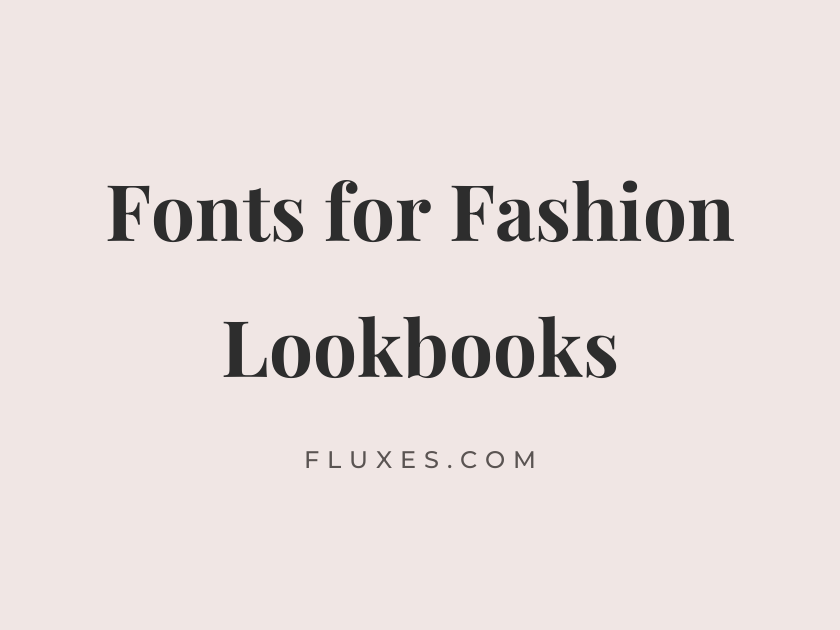
61 Best Fonts for Fashion Lookbooks
Fashion lookbooks live or die on restraint. The clothes need room to breathe, so the type has to work harder with less: a single well-chosen typeface for a cover line, a disciplined caption face for credits, maybe one flourish of script for a signature. Because most lookbooks are produced on tight budgets and tighter timelines, free fonts from Google Fonts have become the backbone of the industry, from independent labels doing their own layouts to agencies building templates for seasonal drops. The styles that work best split into a few families: editorial serifs with couture polish, minimalist sans faces for clean grid systems, condensed display faces for cover mastheads, and the occasional script or monospace accent for personality.
What follows is a working wardrobe of typefaces suited to fashion editorial, from bridal-adjacent elegance to streetwear grit, all free to download and license for commercial work.
1. Playfair Display
Season after season, an editorial silhouette refined
Playfair Display is the reflexive choice for fashion editorial, and for good reason. Its high-contrast strokes and sharp serifs read as instantly luxurious on a cover or section divider, echoing the Didone tradition of Vogue and Harper’s Bazaar mastheads.
It gets used constantly, so pair it with an unexpected sans for body copy if you want the layout to feel less like a template. At very small sizes the thin hairlines can vanish, so reserve it for headlines rather than dense caption text.
2. Bodoni Moda
Sharp contrast, couture polish, unmistakably runway
Where Playfair leans slightly romantic, Bodoni Moda leans severe. The vertical stress and razor-thin hairlines feel straight off a Milan runway invitation, and the optical size axis in this variable font means it actually holds up better at small sizes than most Didones.
3. Abril Fatface
Bold statement piece for the season's cover
Abril Fatface is a heavyweight display serif built for impact rather than subtlety. Use it sparingly, a single word on a cover or a pull-quote, and it delivers real presence without needing decoration.
4. Cormorant Garamond
Delicate lines for an intimate spring collection
Cormorant Garamond takes the calligraphic bones of old-style Garamond and stretches them thin and tall, giving it a jewelry-catalog daintiness. It suits bridal, resort, and lingerie lookbooks where softness matters more than authority.
5. Cormorant
Slender serifs for an understated capsule edit
The wider-ranging sibling of Cormorant Garamond, this family offers heavier weights and a slightly less fragile presence, so it can carry short headlines as well as decorative initials.
6. EB Garamond
Classic tailoring, timeless proportions, quietly confident craft
For brands building on heritage rather than trend, EB Garamond brings old-world credibility. It is a genuinely comfortable reading face, which makes it a smart pick for longer designer statements or press notes inside a lookbook.
7. Lora
Warm serifs for a lived-in wardrobe story
Lora has gentle brushstroke curves that soften its serif structure, giving it a slightly literary, personal feel. It works well as body copy alongside a sharper display serif on the cover.
8. Spectral
Refined text face for detailed collection notes
Built originally for on-screen reading, Spectral holds its shape at small sizes better than most fashion serifs, which makes it a dependable choice for garment descriptions, fabric notes, and credits pages.
9. Domine
Sturdy serif structure for a confident label
Domine has a bookish weight and even color that reads as trustworthy rather than trendy. It suits directories, size charts, and other functional pages that still need to feel considered.
10. Crimson Text
Understated serif for essay-style brand storytelling
Crimson Text is unfussy and highly legible, a good match for lookbooks that pair strong photography with genuine editorial writing rather than short captions.
11. Vollkorn
Grounded serif for an artisanal fashion narrative
There is a handmade, slightly rustic character to Vollkorn that suits craft-forward or sustainable fashion brands wanting to avoid the polish of a Didone.
12. Prata
Elegant serif detailing for a formal edit
Prata carries a restrained art deco quality, with sharp, refined serifs that feel dressed for evening wear. It reads best in all caps at a moderate size, as a section label or product name.
13. Marcellus
Old-world elegance for the archive collection
Marcellus has a carved, monumental quality reminiscent of engraved lettering, which lends itself to heritage houses and anniversary collections.
14. Italiana
Fine serifs whispering understated Italian glamour
True to its name, Italiana has the slender, sun-bleached elegance of an old Riviera advertisement. It is extremely thin, so treat it as a large-scale headline face rather than body text.
15. Yeseva One
Ornamental serif for a statement cover line
Yeseva One mixes classic serif structure with playful, slightly rounded details, giving it warmth that pure Didones lack. It suits boutique and accessories lookbooks that want elegance without severity.
Test every display face at the exact size it will appear on the page; many fashion serifs look stunning at large sizes and disappear or clog up at caption size.
Keep tracking generous on all-caps headlines, especially with condensed faces like Bebas Neue or Oswald, so the type does not feel cramped beside open, breathable photography.